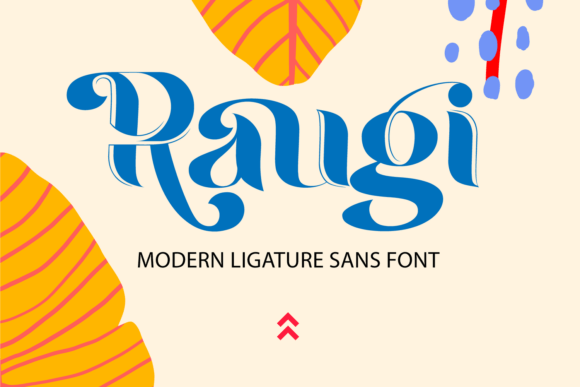
Behold Raugi, a visual masterpiece crafted with precision and passion. This extraordinary display font invites you on an artistic journey where elegance and clarity dance in perfect harmony. Its meticulously sculpted curves and sharp serifs create a visual symphony that will elevate your designs to new heights.
Dive into the world of Raugi, where imagination knows no bounds. With its timeless beauty, this font effortlessly complements a vast array of creative endeavors. Whether you're a designer seeking to craft captivating book titles, a marketer looking to leave a lasting impression, or a content creator seeking to convey your message with flair, Raugi stands ready to be your creative partner.
Experience the transformative power of Raugi, a font that breathes life into your words. Its inherent versatility allows it to seamlessly adapt to a myriad of projects. Whether you're designing eye-catching logos, crafting sophisticated invitations, or creating social media graphics that demand attention, Raugi has the versatility to meet your every need.
Feel the weight of Raugi's presence as it commands attention on your book covers, drawing readers into your literary world. Its bold strokes and graceful curves create an aura of authority and sophistication that will set your book apart from the crowd. Let Raugi be your muse, inspiring you to create works of art that resonate with your audience.
Unlock the full potential of your creative vision with Raugi, a font that empowers you to express yourself with confidence and clarity. Its intuitive design and effortless flow make it a joy to use, ensuring that your creative ideas come to life with minimal effort. Experience the joy of seamless design and watch your ideas flourish into stunning realities.